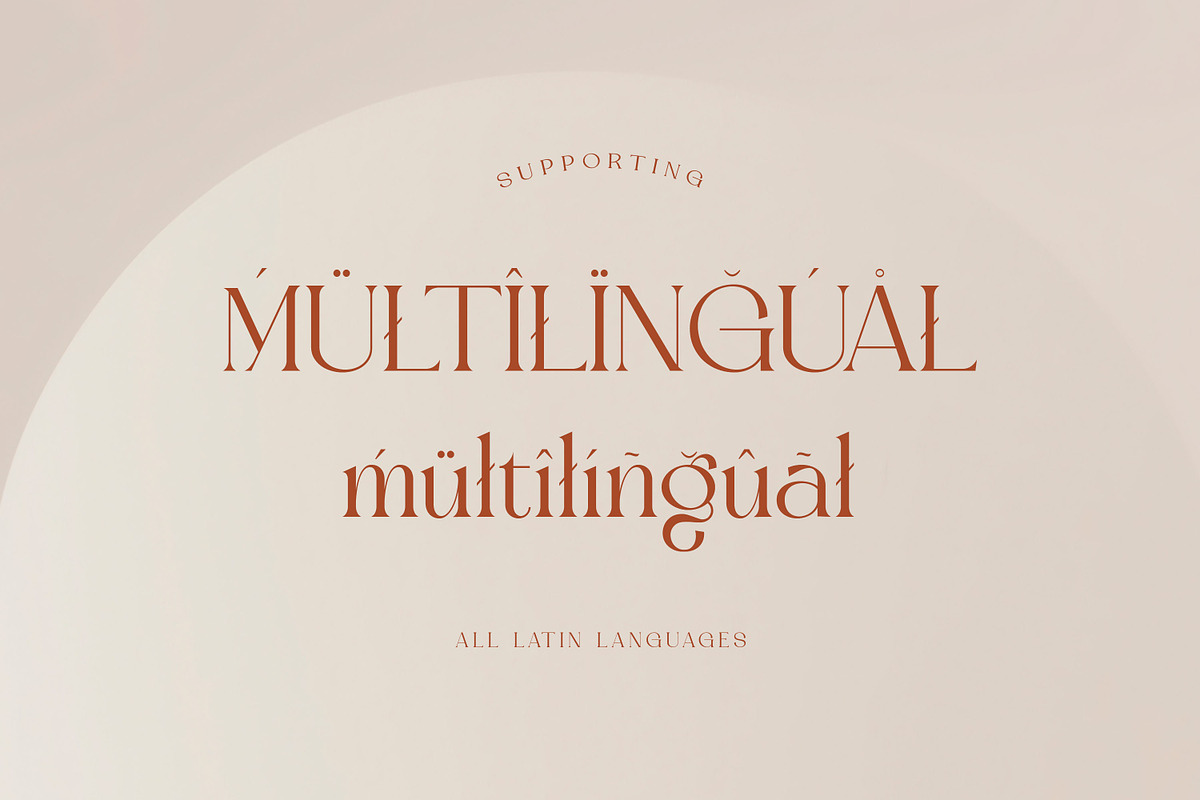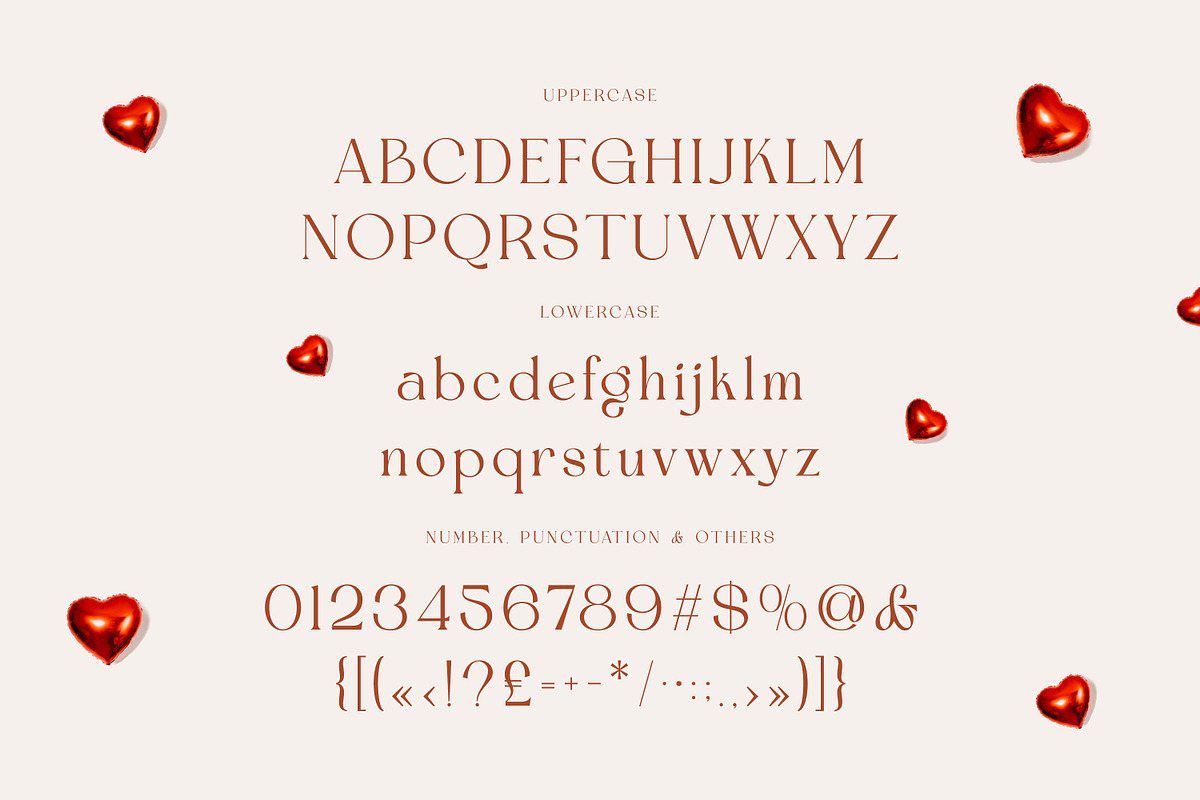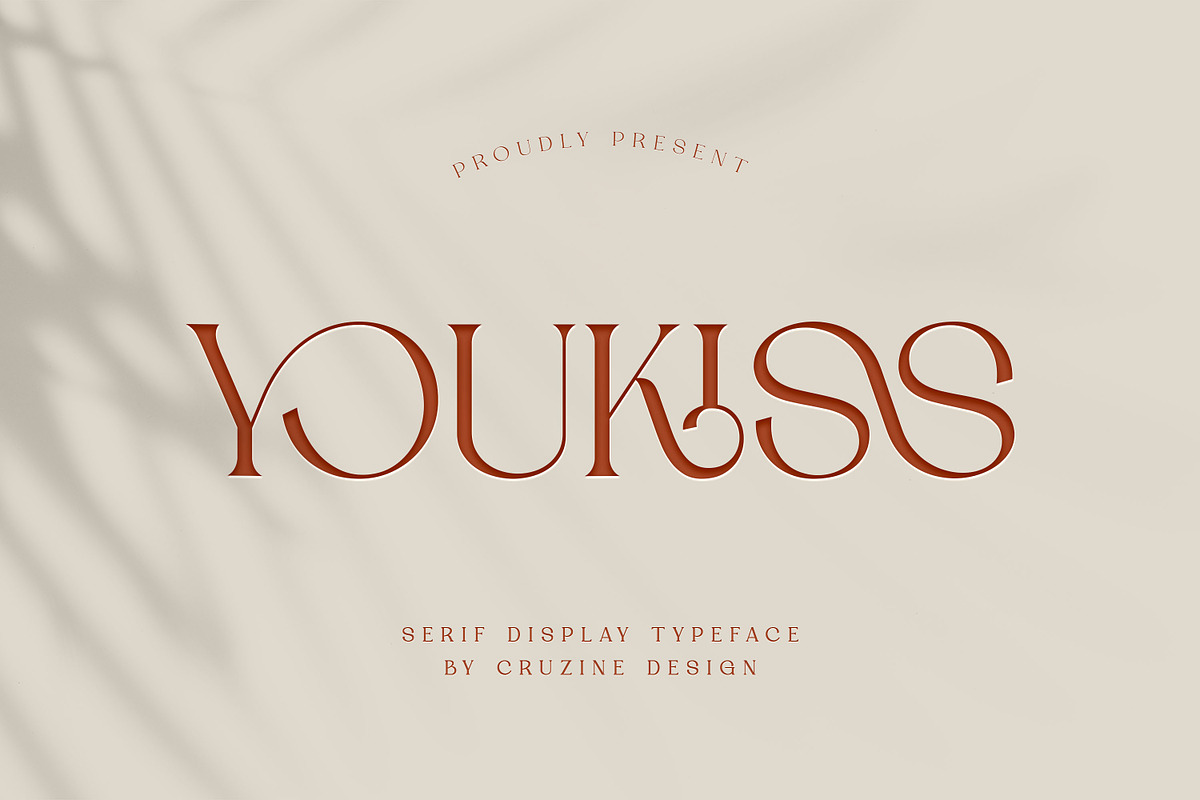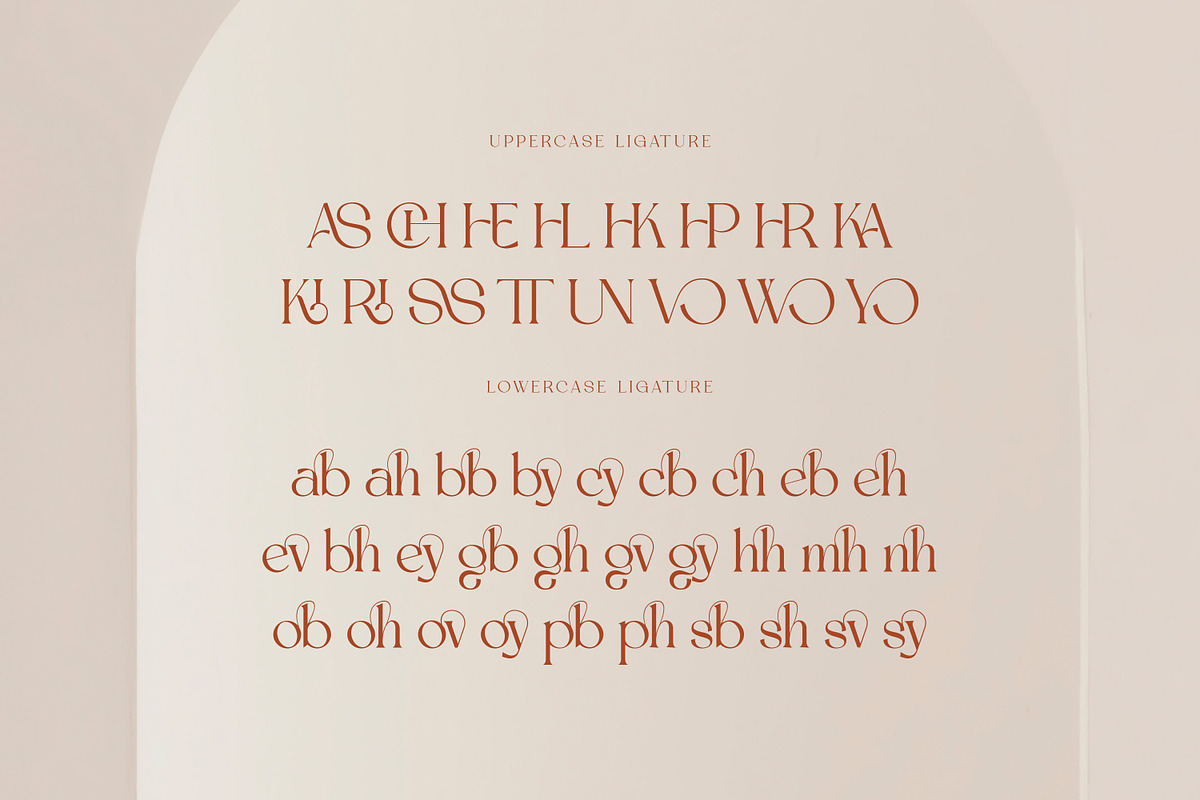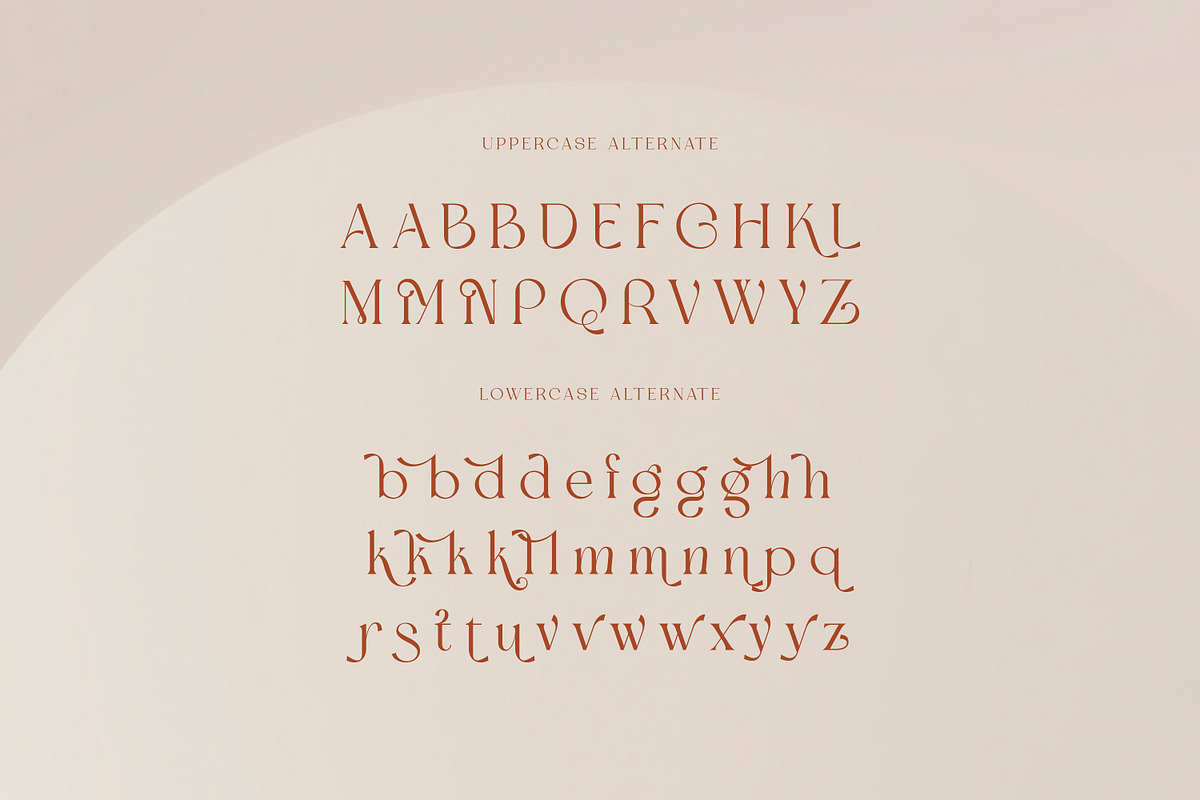
Youkiss Elegant Serif
Trendy, elegant, retro, sharp & modern style serif font for your new fancy projects. Stylish, luxury, creative, romantic and classic style on Youkiss font will be great for any modern branding project. Lot of alternates and ligatures will help you to create unique and original logo design or website header! Enjoy :)
- Alternate characters
- Lot of ligatures
- Great for modern branding projects!